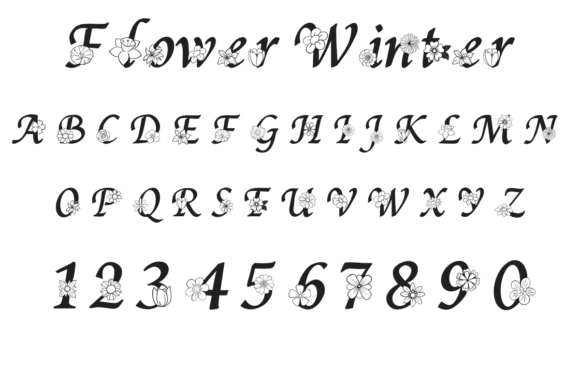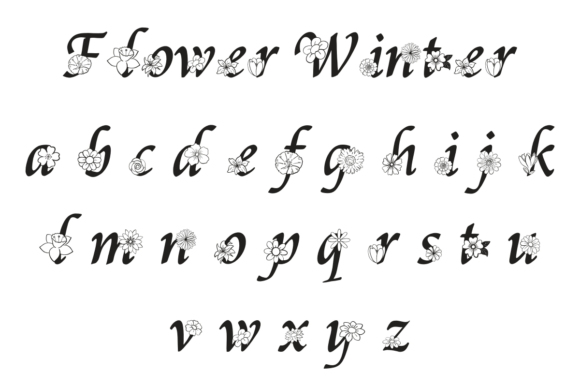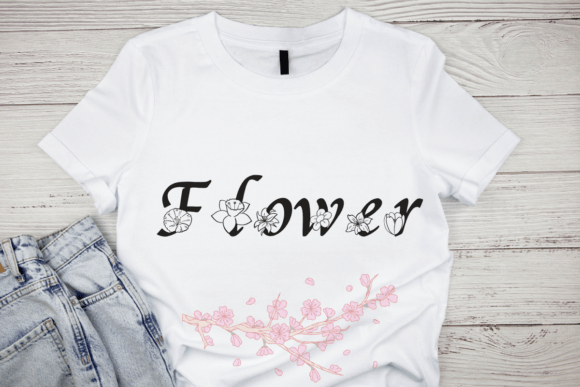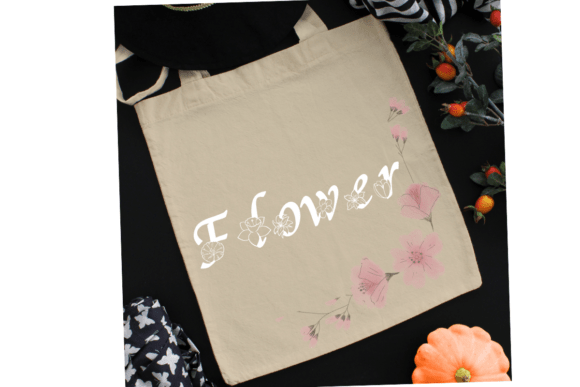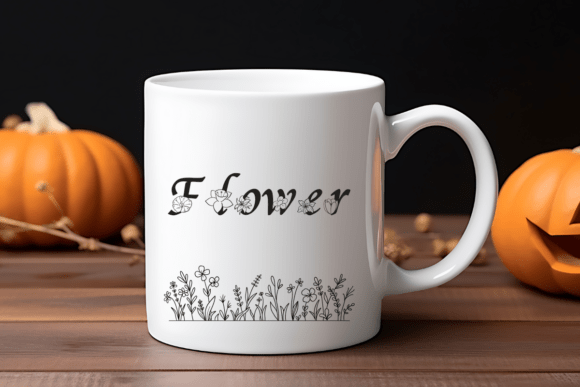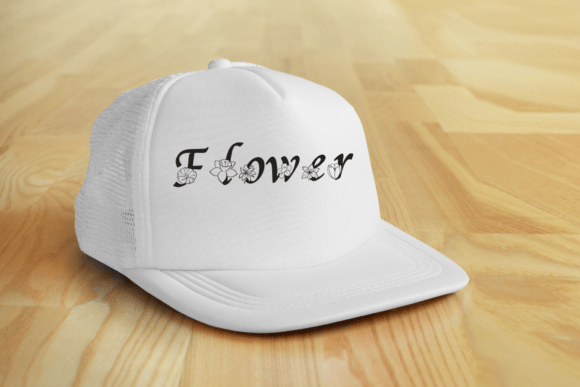
Unleashing the Whimsy of Winter: Discover the Allure of Flower Winter Font
As designers, we’ve all been there – staring at a blank canvas, struggling to find the perfect font to bring our creative vision to life. It’s the moment when the perfect typography can make all the difference between a good design and a great one. And that’s where the enchanting Flower Winter Font comes in – a charming decorative font that effortlessly weaves together classic elegance and playful floral artistry.
With its delicate flower illustrations and smooth curves, Flower Winter Font is the perfect addition to any designer’s toolkit. Whether you’re crafting a romantic wedding invitation, a seasonal greeting card, or a bold logo, this versatile font is sure to captivate your audience. Its timeless beauty and whimsical charm make it an essential element for any creative project that needs a touch of nature-inspired magic.
Flower Winter Font Key Features
- Font Family: Flower Winter is a unique, hand-drawn font with a winter theme, featuring intricate details and delicate lines.
- Unique Characteristics: Features a delicate, hand-painted style with intricate details, perfect for creating a whimsical and festive atmosphere in winter-themed designs.
Flower Winter Font Review
I’ve had the chance to work with the Flower Winter Font, and I must say, it’s a lovely addition to any winter-themed design. ✨ The font’s whimsical feel and delicate lines evoke a sense of nostalgia and coziness.
The font’s best features include:
- Its versatility – it can be used for a variety of winter-related designs, from invitations to social media graphics.
- The delicate flourishes that add a touch of elegance to any design.
- The wide range of sizes and styles, making it easy to customize to fit your needs.
However, I do have a few concerns:
- The font may be too cursive for some designs, which could make it difficult to read at certain sizes or in certain contexts. ⚠️
- The limited character set may limit its use in certain situations, such as when you need to use a specific character that’s not included in the font.
Overall, I think the Flower Winter Font is a lovely addition to any winter-themed design. While it may have some limitations, its unique feel and versatility make it a great choice for designers looking to add a touch of whimsy to their work.
Here are a few tips to get the most out of the Flower Winter Font:
- Use it to create a whimsical and playful atmosphere.
- Pair it with bold colors to make a statement.
The Flower Winter Font is perfect for:
- Children’s party decorations and materials.
- Branding and marketing materials for businesses with a playful and whimsical image.